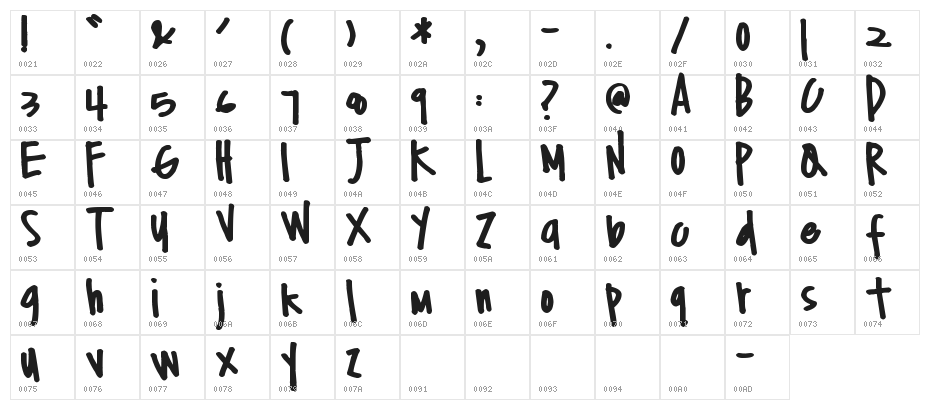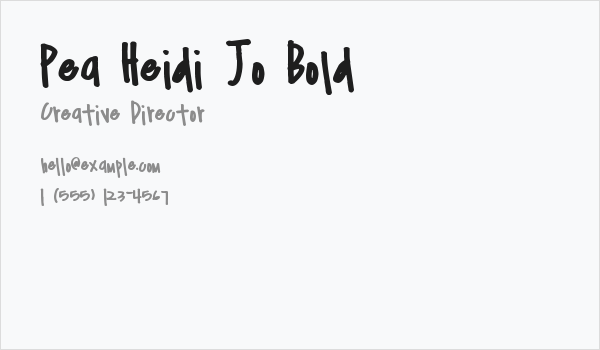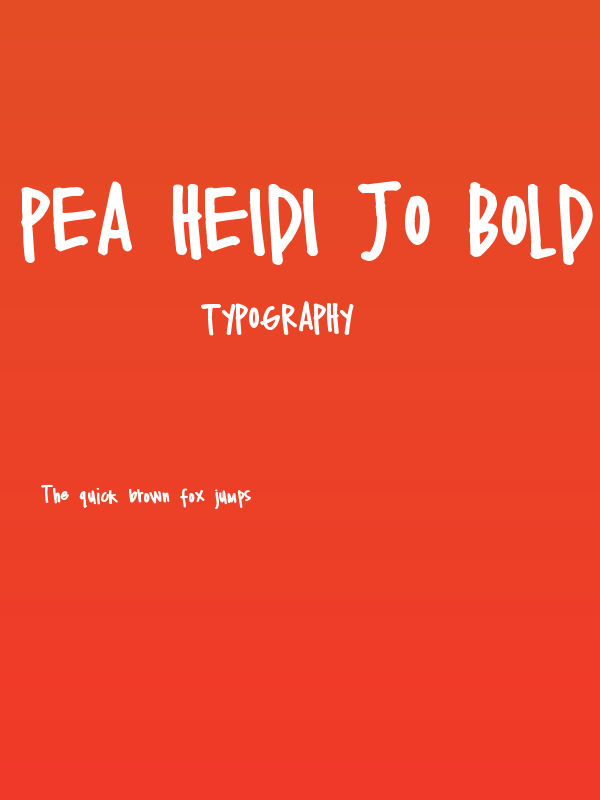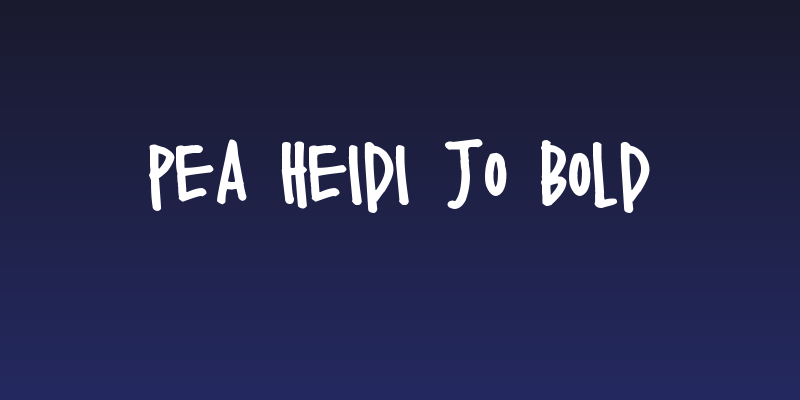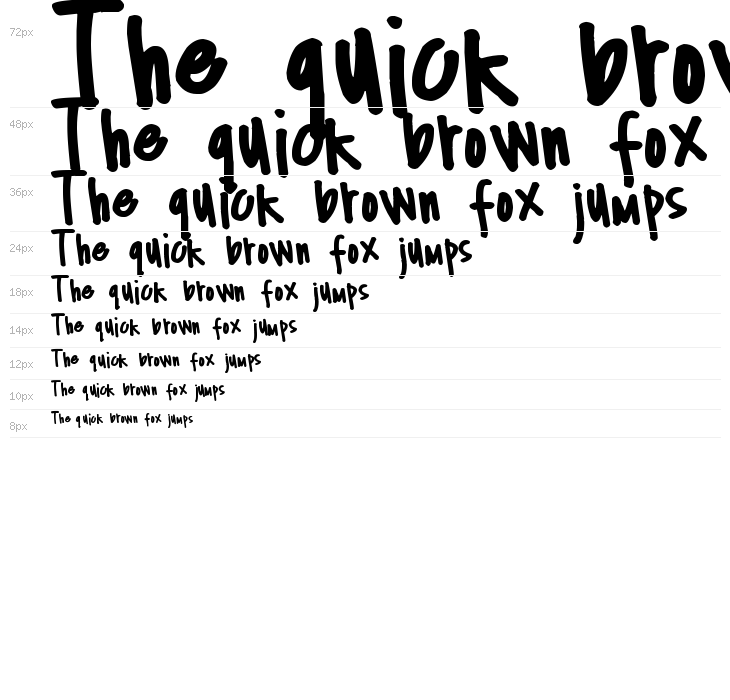
Pea Heidi Jo Bold Font
Pea Heidi Jo Bold Description
This font features a bold, handwritten style with a playful and casual appearance. The letters are thick and rounded, giving a friendly and approachable feel. The uppercase and lowercase letters maintain a consistent style, with slightly irregular shapes that add to the hand-drawn aesthetic. Numbers and special characters follow the same bold and informal design, making the font versatile for various creative applications. The overall look is dynamic and energetic, suitable for projects that require a personal touch.
Overall StyleCasual, Playful
Use CaseHeadlines, Logos, Informal Text
Proposed ProjectsIdeal for greeting cards, children's books, playful branding, and social media graphics.